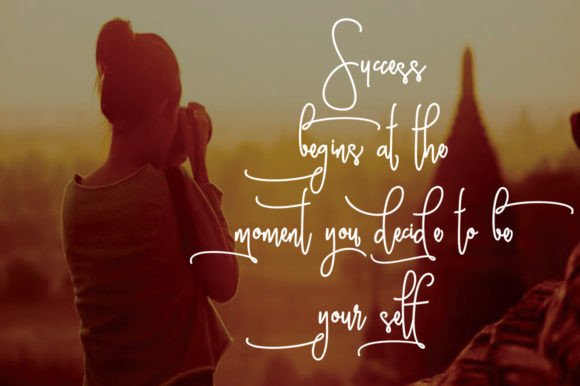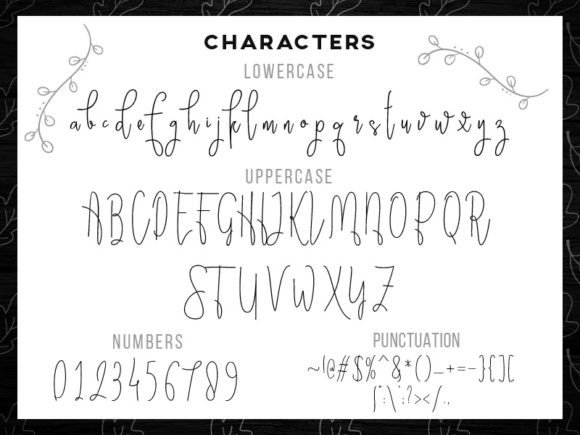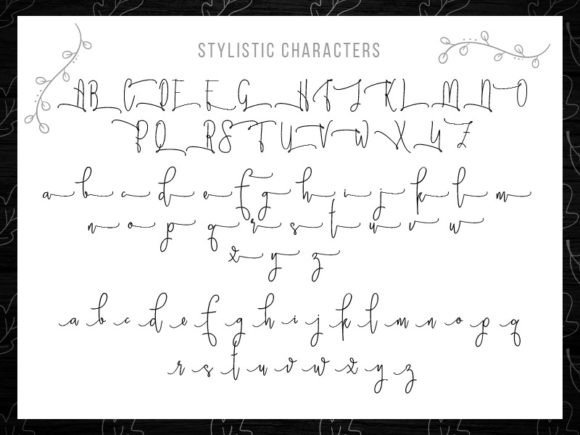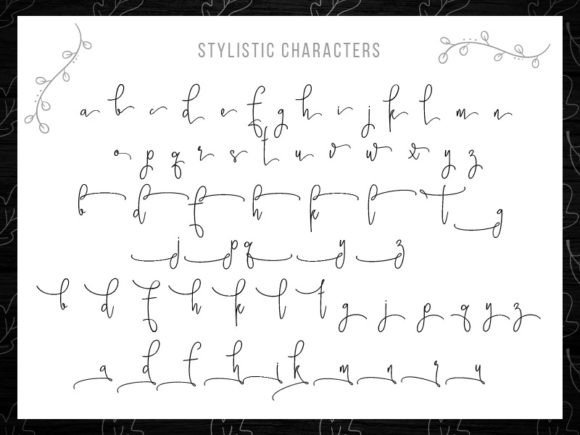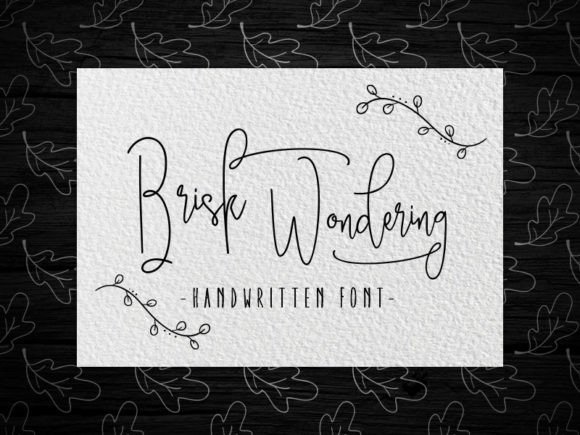
Discover the Elegance of Brisk Wondering Font: A Handwritten Marvel
Are you on the hunt for a font that adds a touch of elegance and personality to your designs? Look no further than the Brisk Wondering Font. This beautiful, handwritten font is a game-changer for designers and crafters alike, offering a wide range of possibilities for customization and creativity.
The Beauty of Brisk Wondering Font
Brisk Wondering Font is an elegant handwritten font that boasts beautiful swashes and curly lines, giving your projects a unique and sophisticated look. The font’s design is carefully crafted to provide a sense of fluidity and movement, making it perfect for designs that require a touch of whimsy and charm.
What Sets Brisk Wondering Font Apart
So, what makes Brisk Wondering Font stand out from the crowd? For starters, the font comes with a wide range of characters, allowing you to make every project personal and customized. This means that you can use the font to create a unique look for each project, without worrying about it looking repetitive or stale.
Another advantage of Brisk Wondering Font is its versatility. The font’s design allows you to use it over and over again, and yet, it will look completely different every time you use it. This is perfect for designers and crafters who like to experiment and try out new things.
Brisk Wondering Font is a dream come true for designers and crafters who are looking for a font that can help them create stunning projects. Whether you’re working on a logo, a poster, or a digital project, this font is sure to impress.
The font’s elegant and handwritten design makes it perfect for a wide range of projects, including:
- Digital projects, such as social media graphics and blog posts
- Stationery and invitations
- Crafting projects, such as handmade cards and scrapbooking
Tips for Using Brisk Wondering Font
To get the most out of Brisk Wondering Font, here are a few tips to keep in mind:
- Experiment with different swashes and curly lines to add a personal touch to your projects.
- Use the font’s versatility to create a unique look for each project.
- Don’t be afraid to mix and match the font with other design elements, such as images and graphics.
- Take advantage of the font’s wide range of characters to add a touch of elegance and sophistication to your projects.
| Font Name | Brisk Wondering Font |
| Author | moriztype |
In conclusion, Brisk Wondering Font is a beautiful, handwritten font that is perfect for designers and crafters who are looking for a touch of elegance and personality in their projects. With its wide range of characters, versatility, and elegant design, this font is sure to become a favorite in your design arsenal.